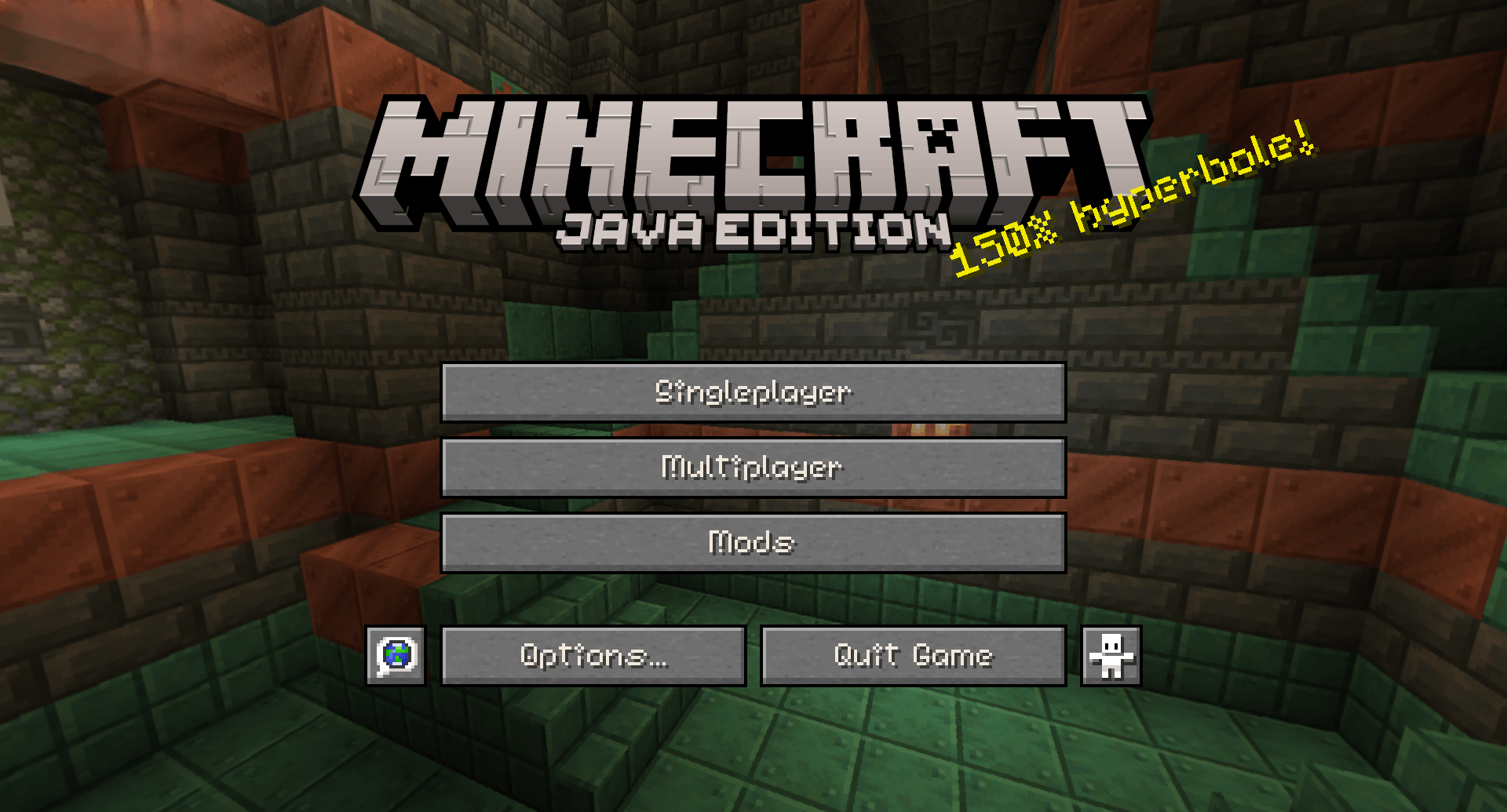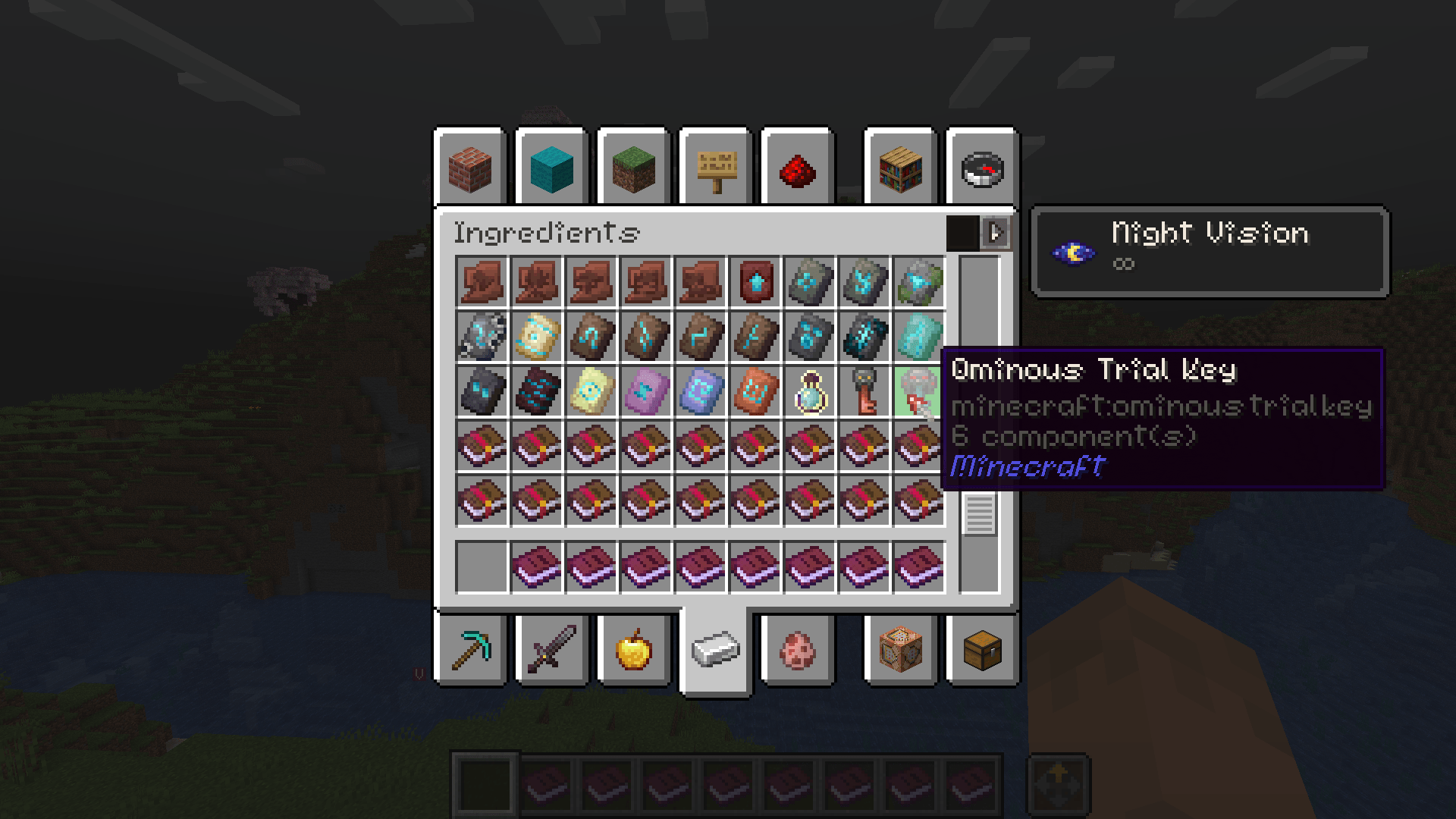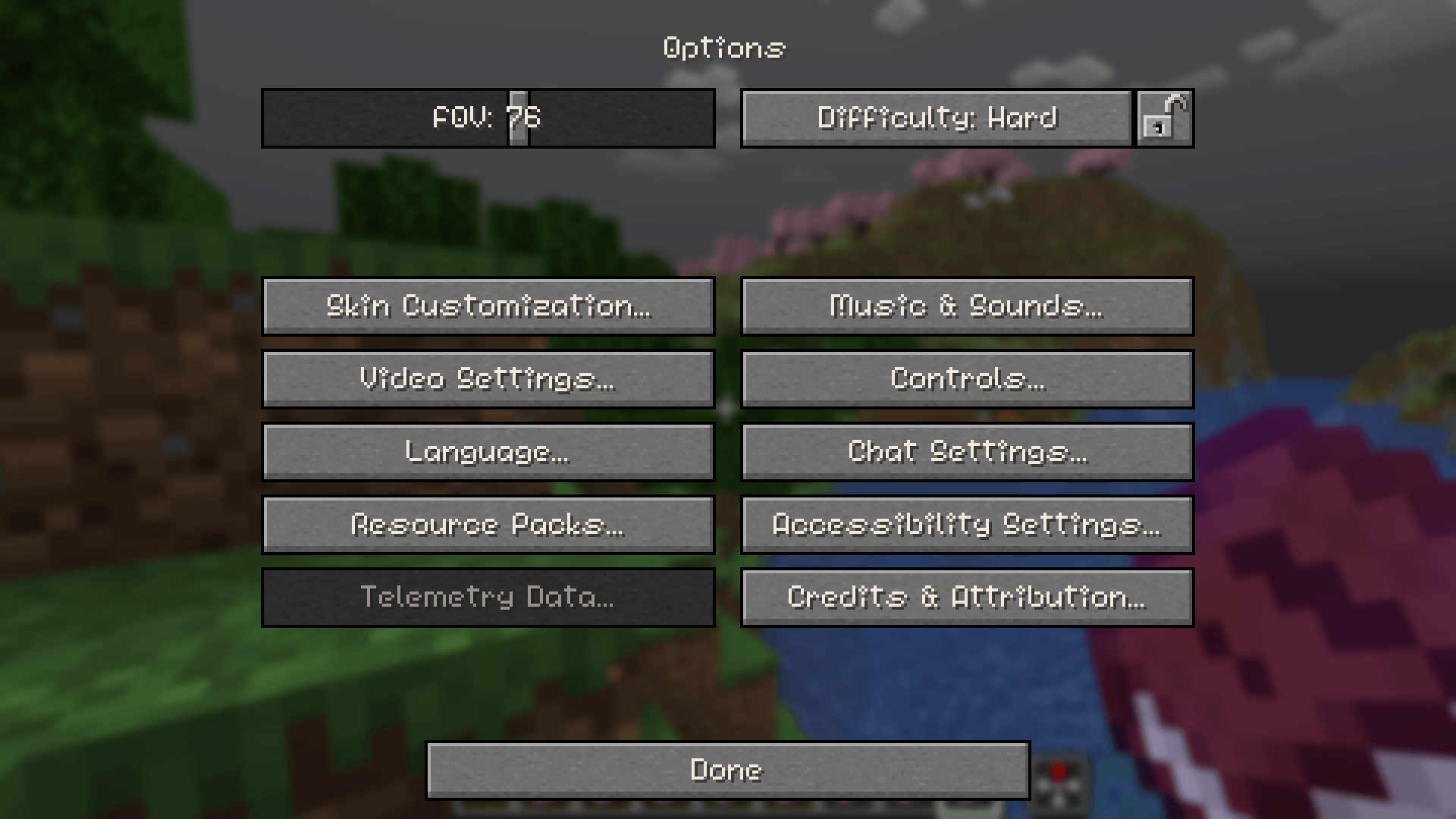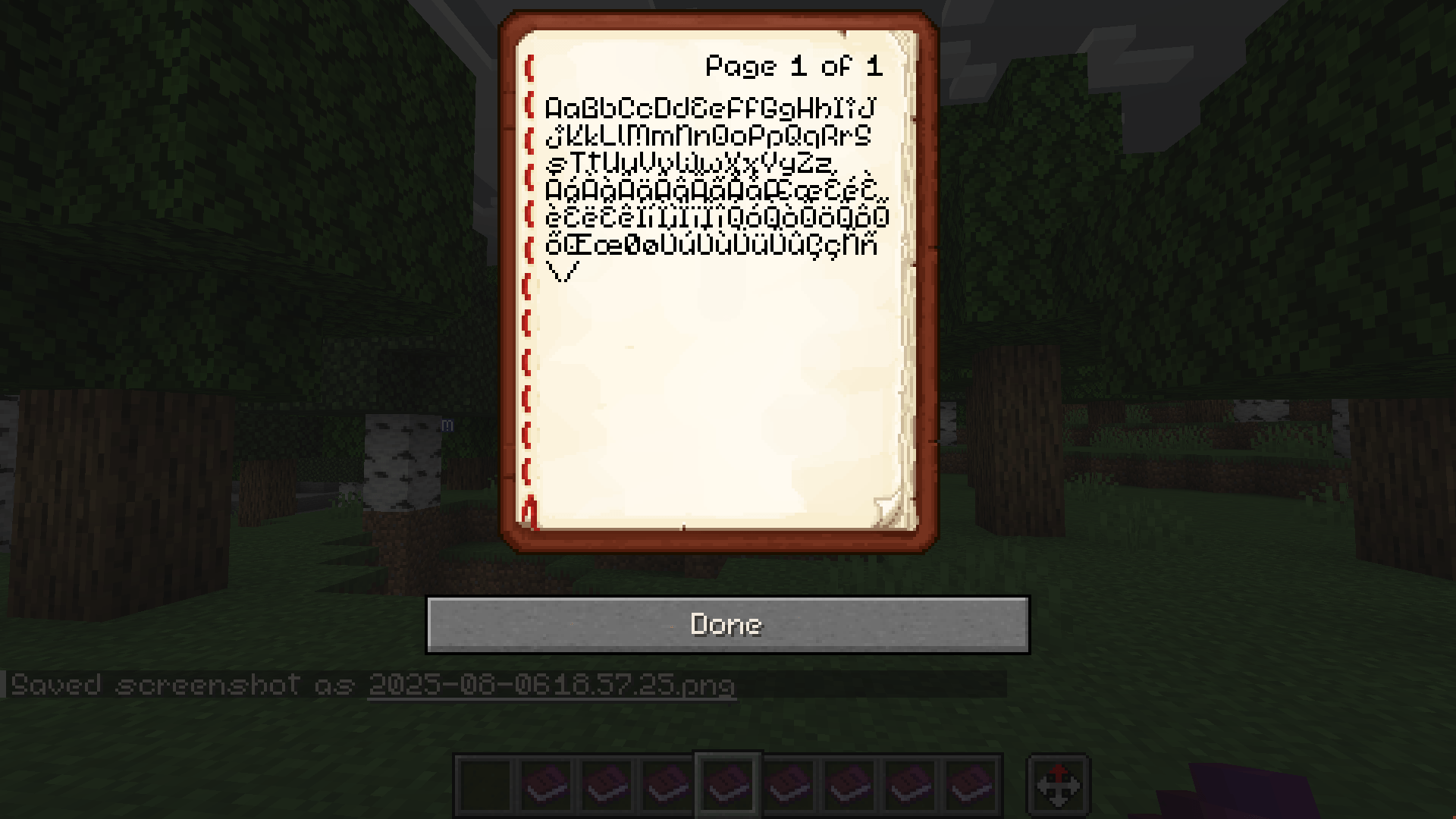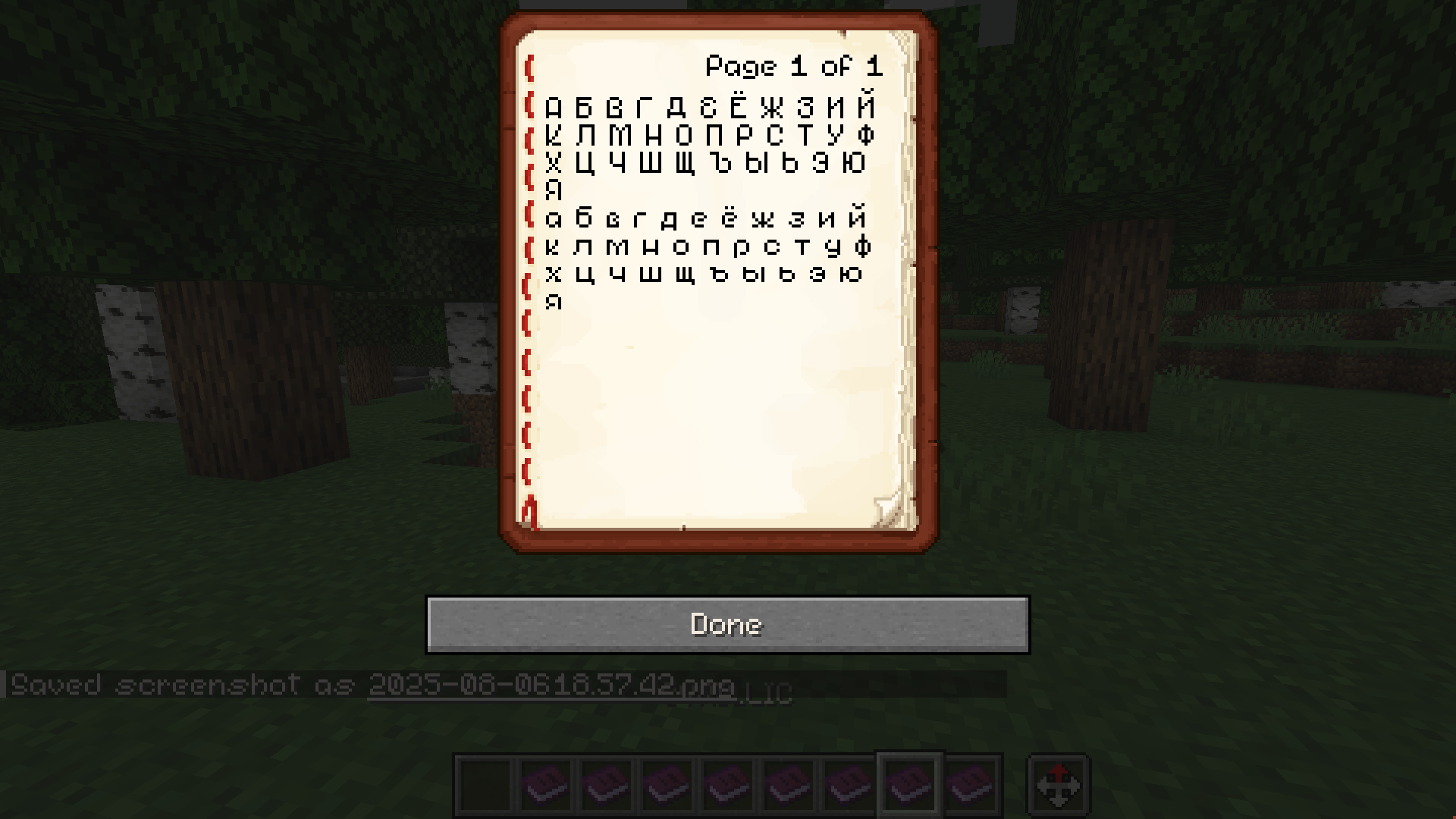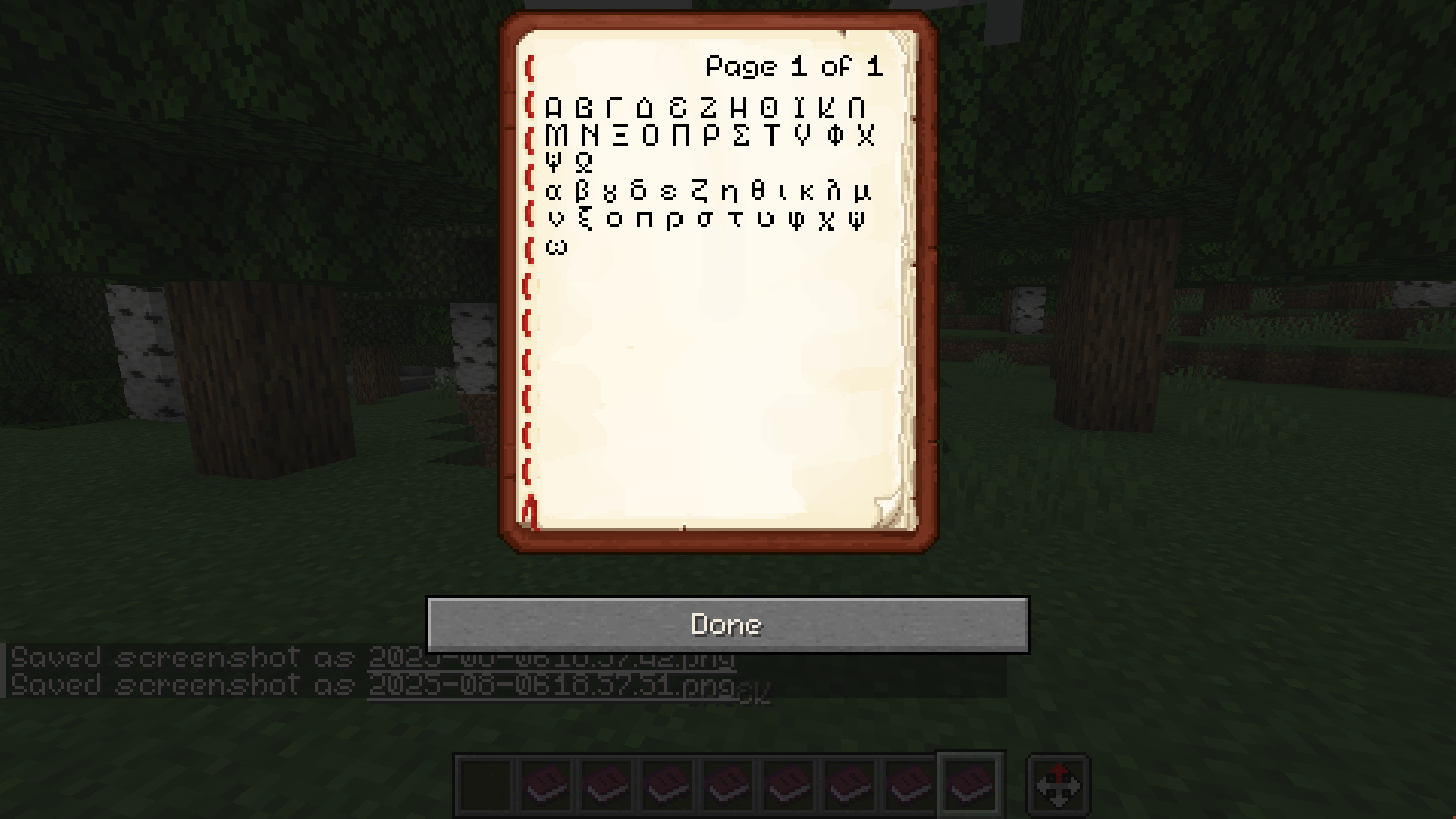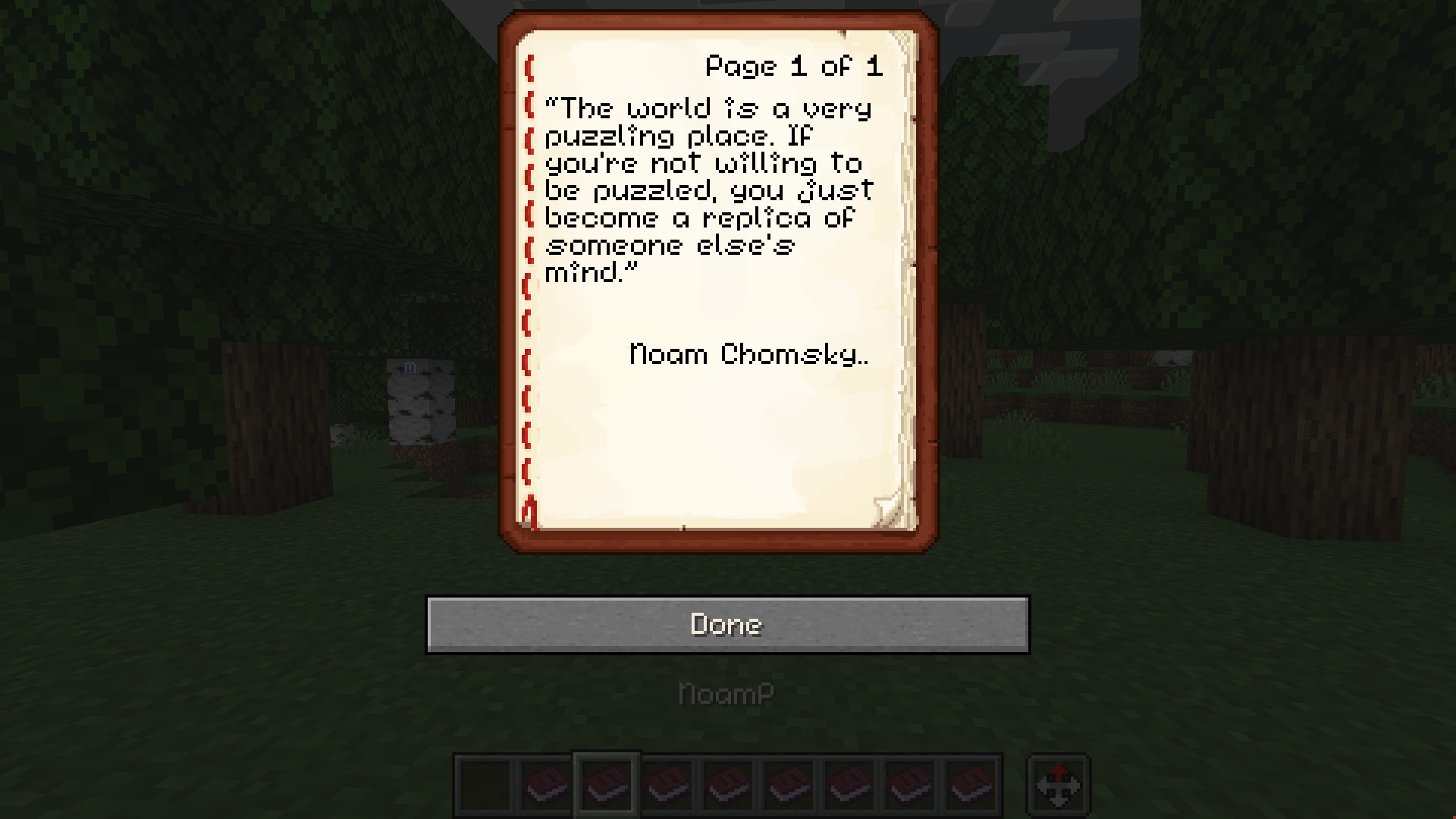
Marga Font
A whimsy and stylish font..
Unicode with special characters support (BETA)
Non-latin characters support - Cyrillic (BETA)
Non-latin characters support - Greek (BETA)
good ol' Noam